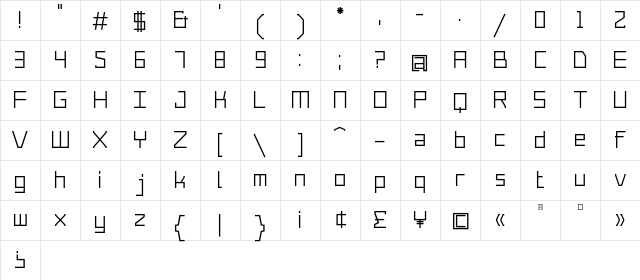
Merubot Regular
Design Context for Merubot Typeface
Merubot takes a measured approach to typography — its balanced proportions and neutral character make it a reliable workhorse for both digital and print work.